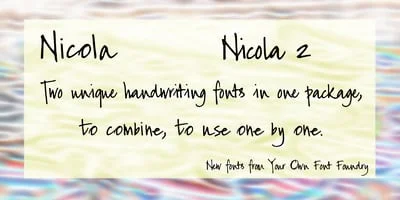
Nicola YOFF Font
Nicola YOFF Font is perfect for fashion designer branding, Italian restaurant signage, luxury boutique logos, European cultural events, elegant personal stationery, sophisticated wine labels, artisan craft packaging, and refined lifestyle marketing campaigns. This distinguished typeface excels in applications where Italian elegance and personal sophistication are essential.
What makes Nicola YOFF Font so exciting is its sophisticated ability to convey European refinement and personal elegance through graceful, name-inspired letterforms that embody the timeless charm of Italian design and the intimate appeal of personalized branding. The font features elegant character shapes with Italian influences and personal styling that evoke images of Tuscan vineyards, Milan fashion houses, and the warm hospitality of Italian culture. Its personality-focused design philosophy combines European authenticity with contemporary sophistication, making it perfect for luxury brands seeking to convey personal touch, cultural heritage, and connection to Italian communities and European elegance culture.
Nicola YOFF Font belongs to the European script font family, specifically designed for personal branding and Italian cultural-themed applications. This typeface family emphasizes elegant visual flow through Italian-inspired styling and personal character elements, ensuring authentic European presentation across various luxury lifestyle and cultural heritage-focused design projects.
Embrace Italian sophistication with Nicola YOFF Font, a typeface that embodies the refined elegance of European personal style and Italian cultural heritage. This distinguished font delivers exceptional grace for luxury applications, featuring comprehensive character sets with European symbols and elegant punctuation marks that capture the essence of Italian refinement and personal sophistication. Its gracefully crafted letterforms maintain excellent readability while preserving the authentic Italian aesthetic across various sizes, from intimate wine labels to large boutique storefront displays. The font's distinctive personal personality makes it invaluable for designers creating luxury brands, Italian cultural materials, and sophisticated content where conveying elegance, personal touch, and European refinement is crucial for engaging luxury audiences and Italian heritage communities seeking authentic European experiences and sophisticated, personalized design excellence.